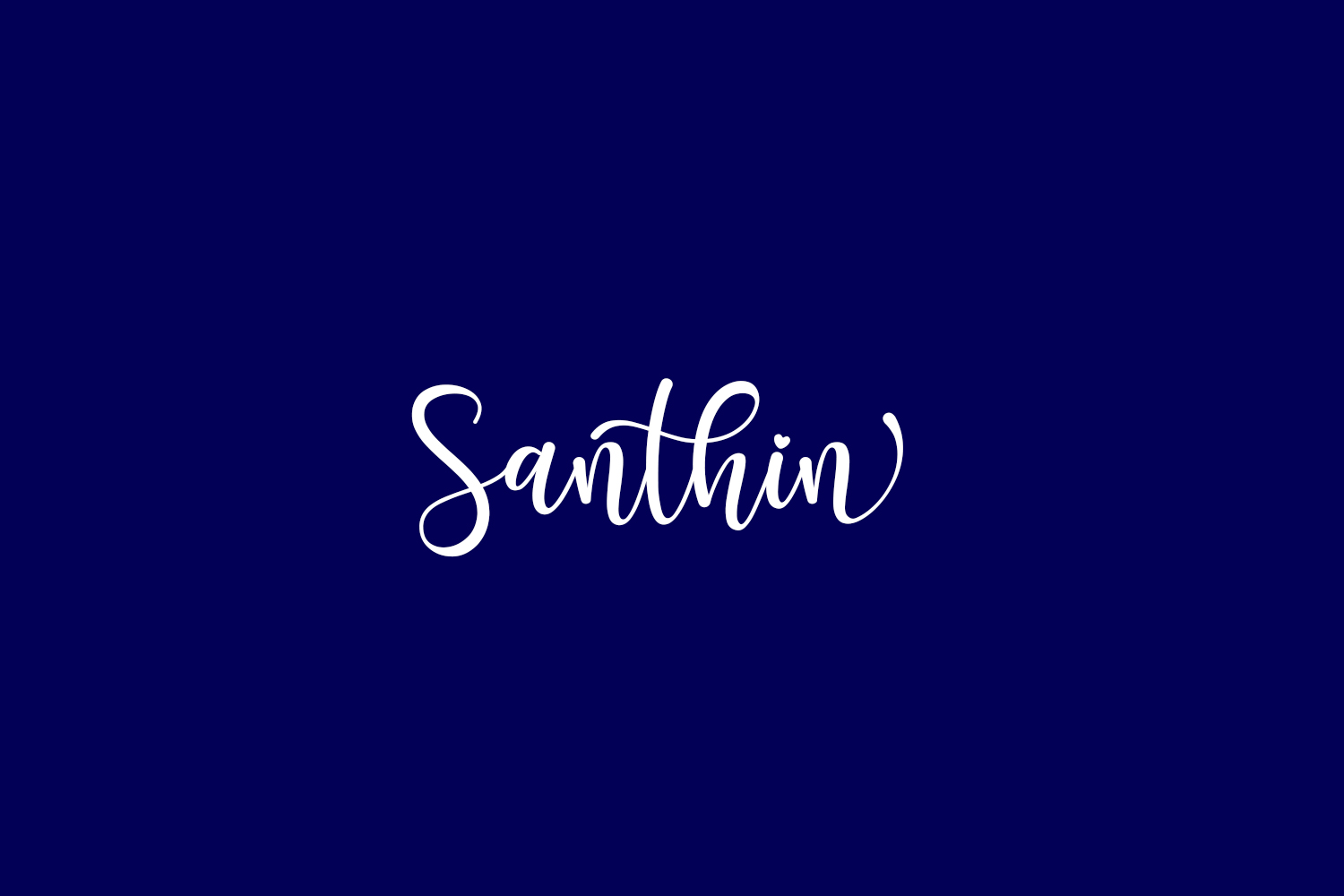
Santhin Free Font is a unique, cute, and Sweety Stylistic Calligraphy. Its handwritten look makes it perfect to use for invitations, stationery, wedding designs, social media posts, advertisements, product packaging, product designs, labels, photography, watermarks, special events, logos, signatures, quotes, badges, labels, packaging design, blog headlines, or simply use it in your next design project.
Using Santhin definitely makes your text stand out. The alternative Santhin comes with a full set of gorgeous uppercase and lowercase letters, multilingual support, punctuation, and stylistic set gorgeous extras from a to z and beginning and ending numerals swashes. Everything can be easily accessed using software that supports OpenType. Like Adobe InDesign, Adobe Illustrator CS, Adobe Photoshop CC, and CorelDRAW.